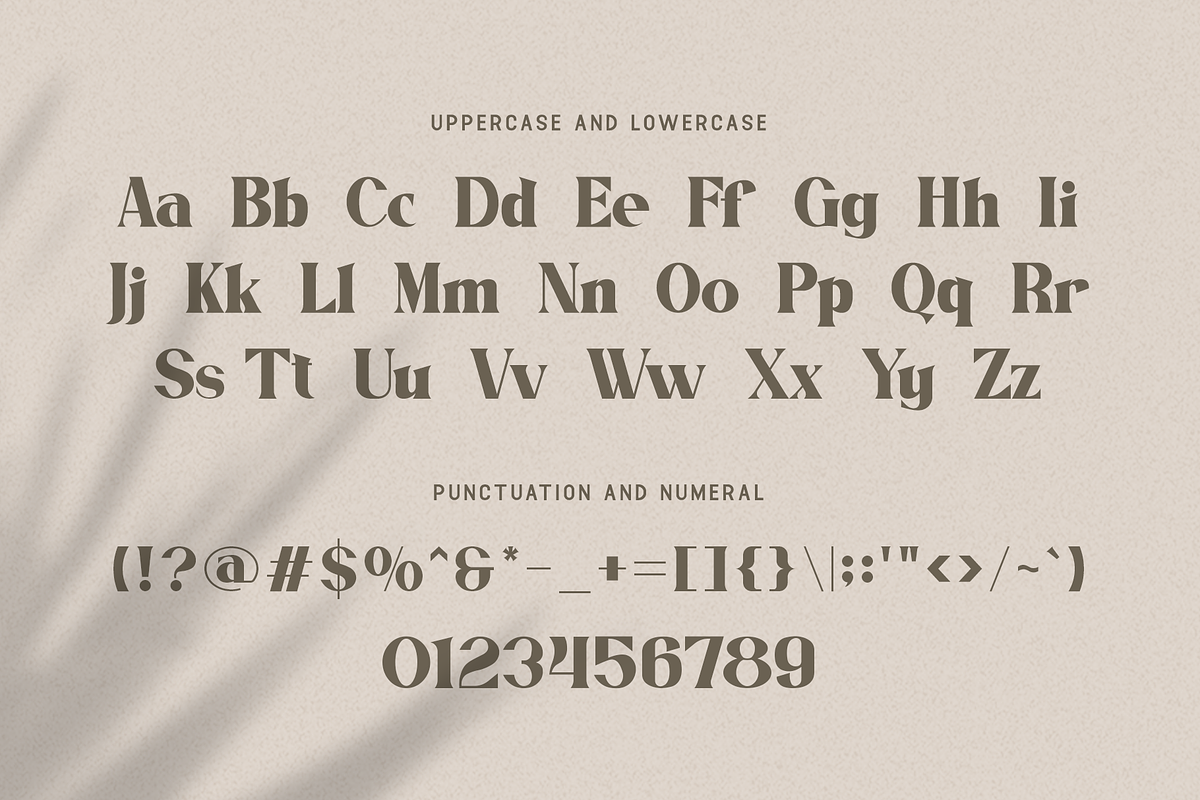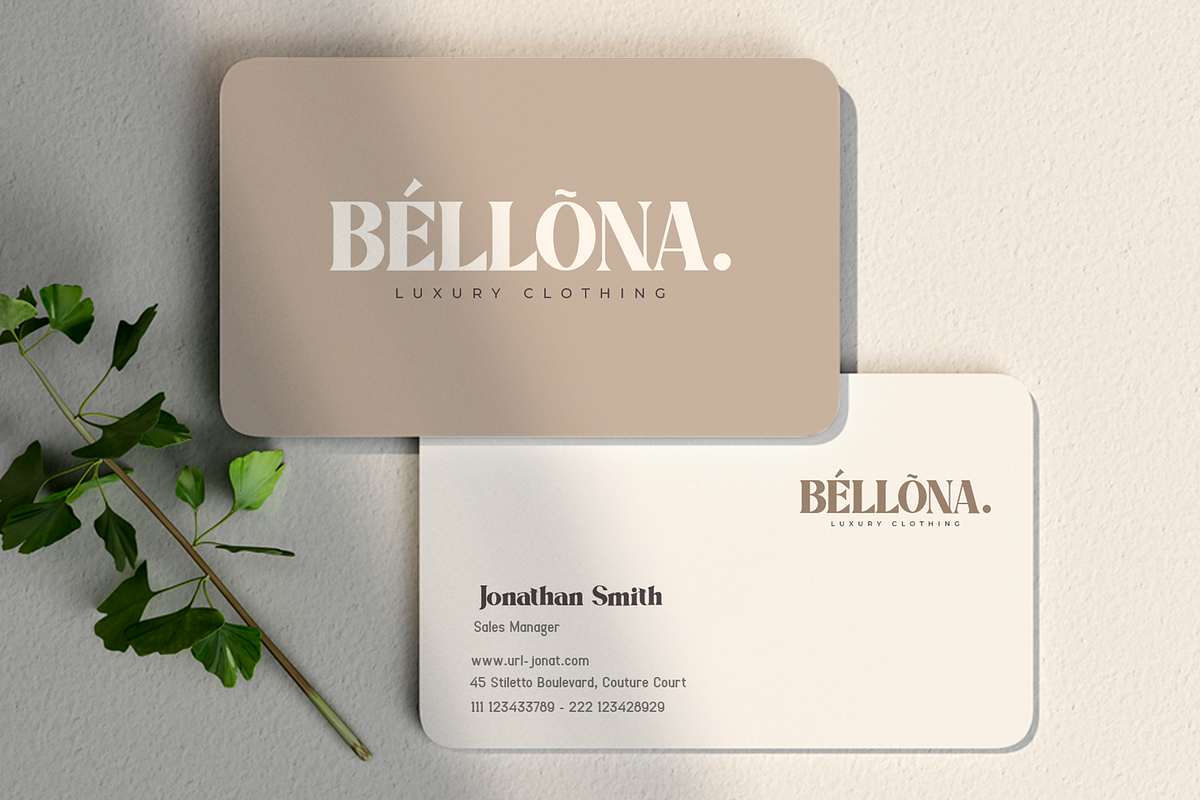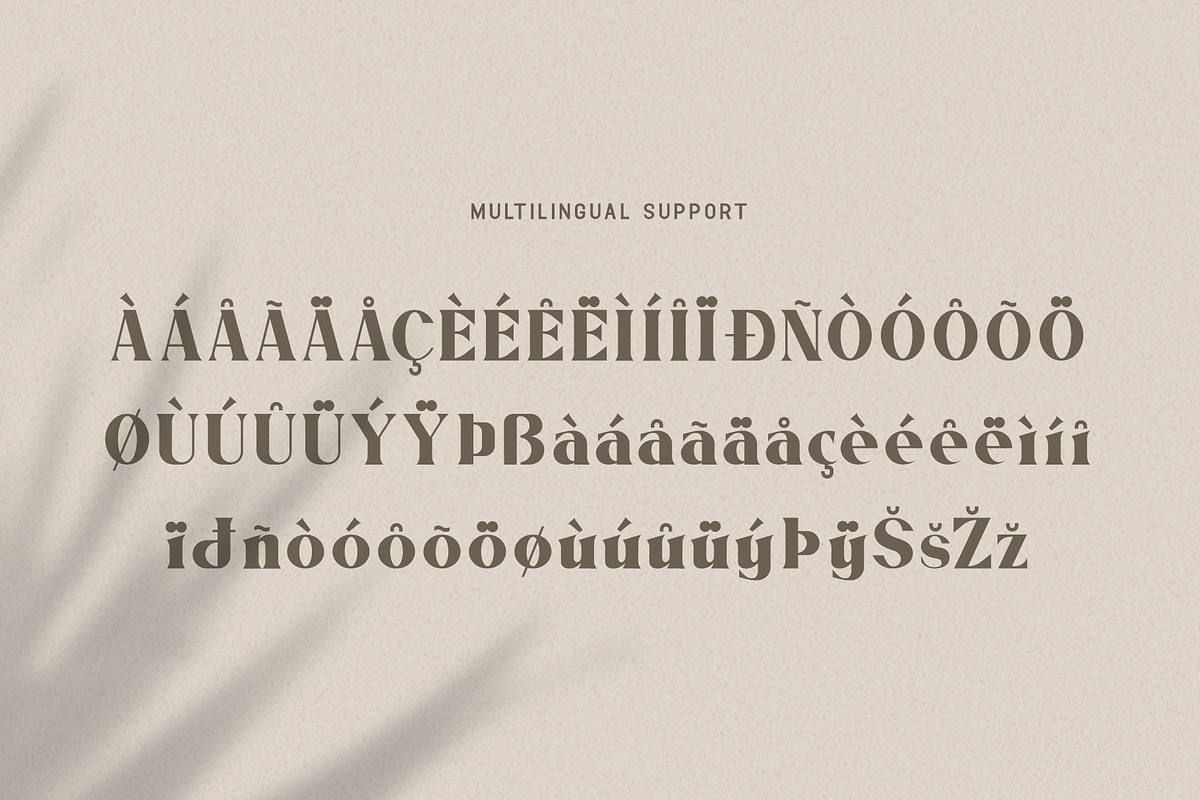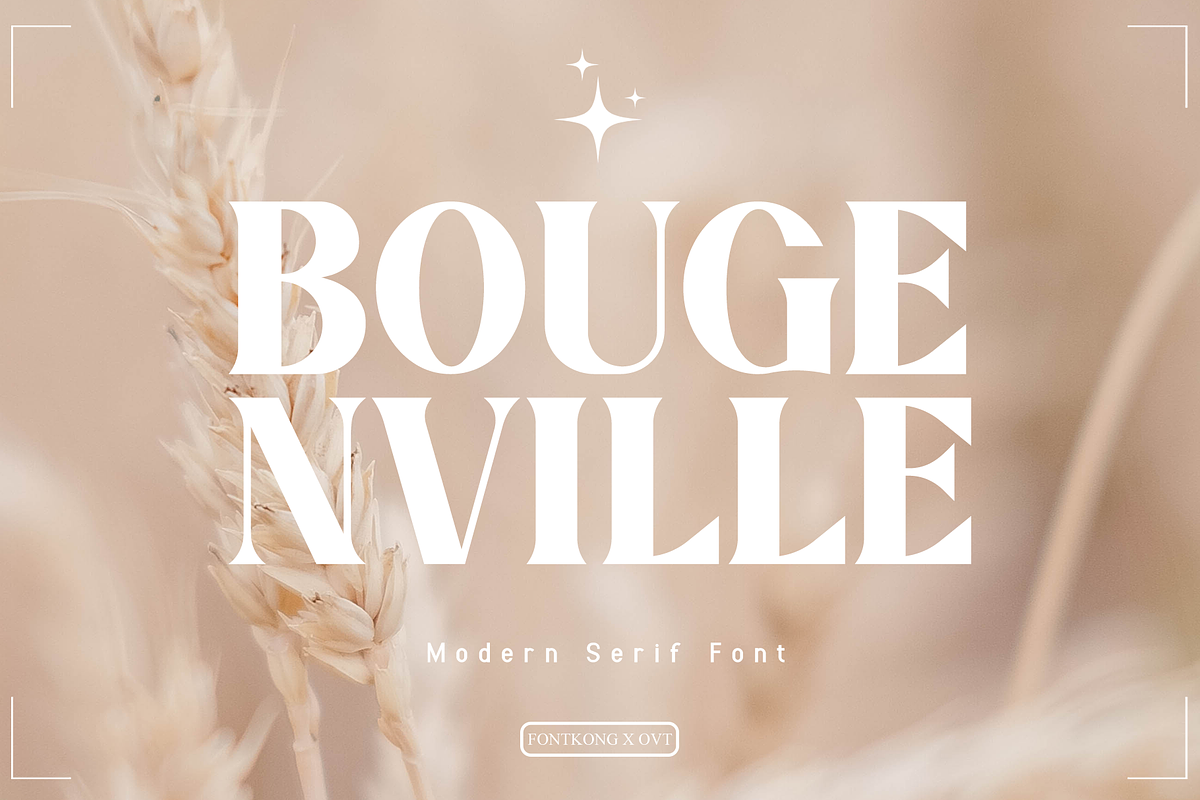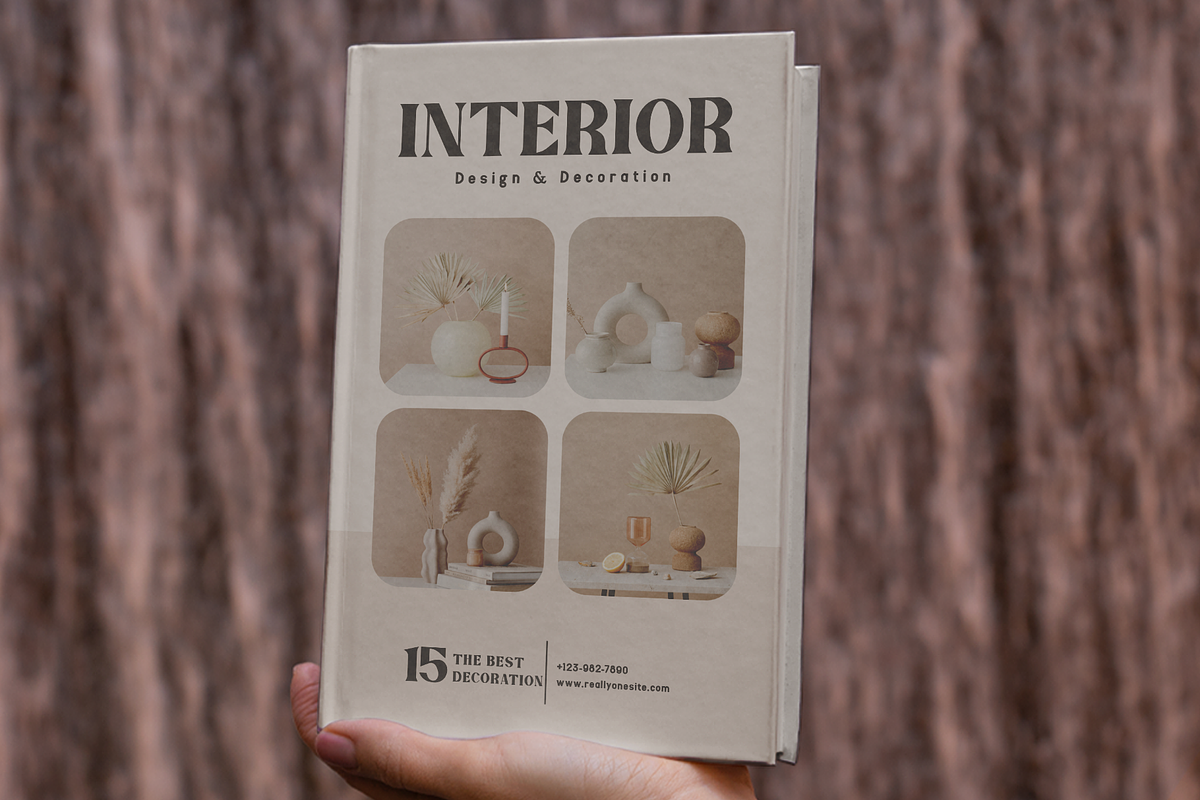
Bougenville - Modern Serif Font
Introducing "Bougenville," a modern serif font that epitomizes timeless elegance with contemporary sophistication. Perfect for graphic designers, typographers, and creatives seeking a refined and versatile typeface for their projects, Bougenville offers a sleek and stylish design that exudes class and refinement.
Ideal for branding, editorial layouts, logos, packaging, and web design, Bougenville's clean lines and balanced proportions provide a professional and sophisticated aesthetic. Each character is meticulously crafted to ensure readability and visual appeal, making your designs both elegant and impactful.
The "Bougenville" font includes a complete set of uppercase and lowercase letters, numbers, punctuation marks, and special characters. This comprehensive set ensures seamless integration into a variety of design projects, from chic branding to elegant editorial content.
Elevate your designs with Bougenville, the modern serif font that combines timeless elegance with contemporary flair.